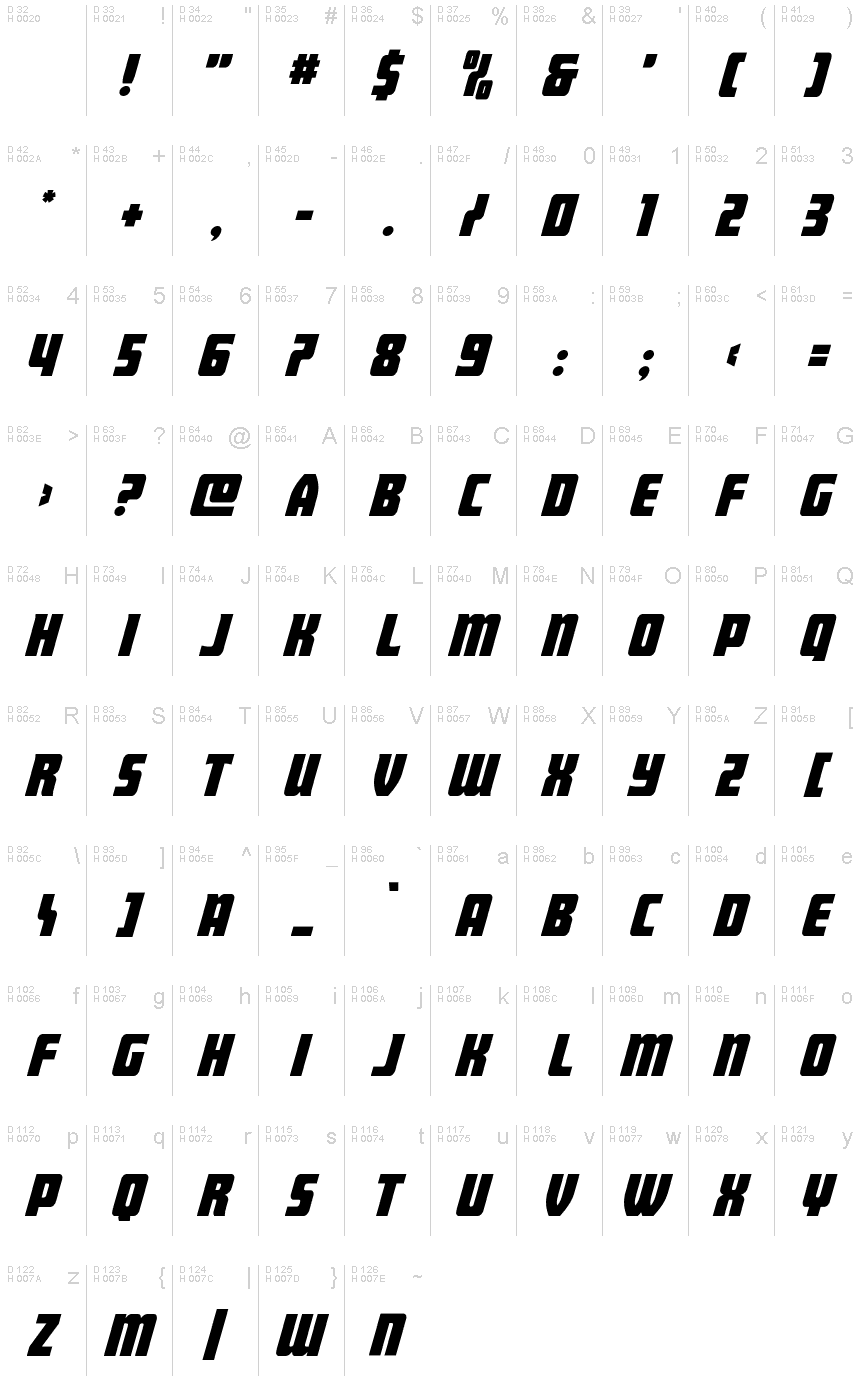
Intrepid Spear Italic
Intrepid Spear Italic, from the Intrepid Spear family designed by Iconian Fonts, is a display font with a distinctly futuristic techno style that commands attention. Its bold weight and condensed width harmonize to create a striking aesthetic that exudes confidence and modernity. The type's italicized stance adds dynamism, propelling the text forward with energy befitting cutting-edge design work.
The font's unique character lies in its dual sub-family structure, offering both Regular and Lower Case options, which provides versatility for designers seeking a tailored typographic voice. The sharp angles and clean lines of Intrepid Spear Italic make it an excellent choice for projects that require a font with presence — from eye-catching headlines to immersive branding applications.
This typeface is especially suited for creative endeavors in tech, entertainment, or any field looking to project innovation. Its visual impact ensures legibility and memorability, making it an indispensable tool in a designer's arsenal for projects that aim to stand out.